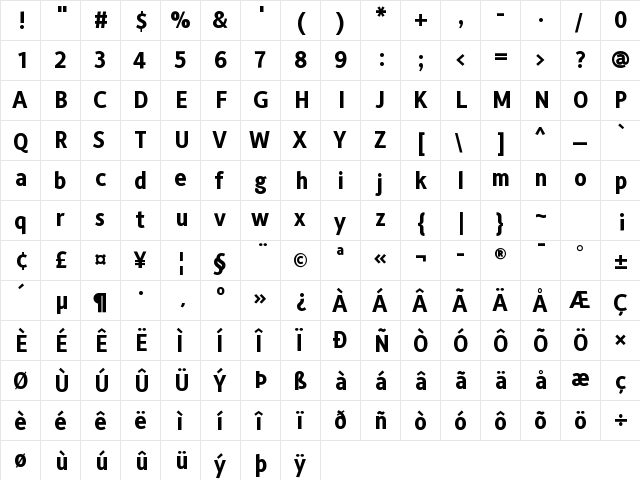
Alber Bold
| Foundry | C.Dickinson |
| Designer | C.Dickinson |
Design Context for Alber Typeface
Alber offers clean, dependable letterforms without strong stylistic allegiance, making it a practical choice for designers who need flexibility. Its bold stroke weight gives it real presence on the page.